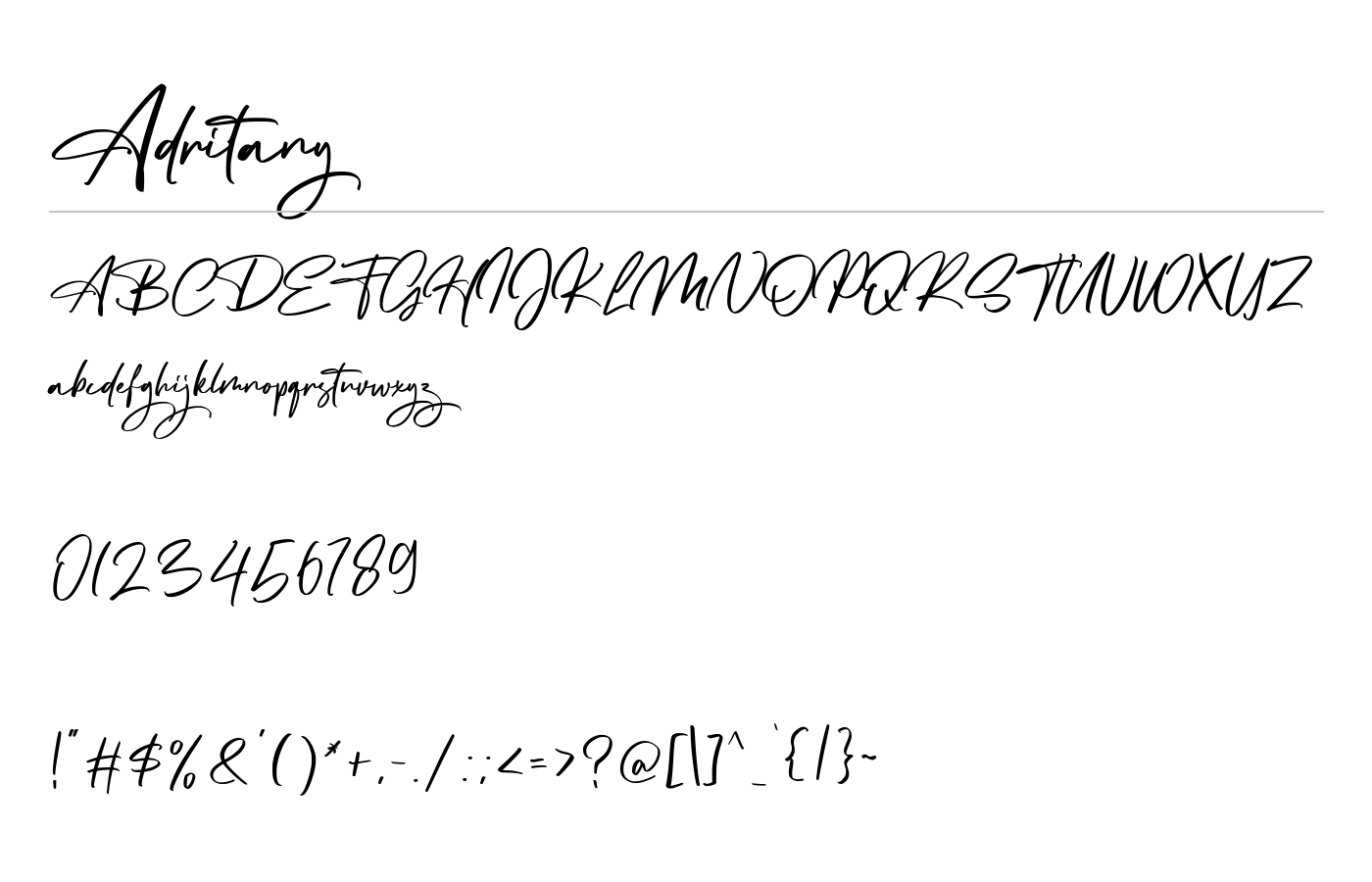
Adritany is a stylish script font featuring elegant, flowing strokes with high contrast and a handwritten, calligraphic feel. Its slender, slightly condensed letterforms and playful swashes create a graceful yet modern look, perfect for adding a personal, sophisticated touch to branding, invitations, and creative projects. This font works beautifully in logos and headlines where unique, artistic flair is desired.
Adritany Font
About Adritany Font